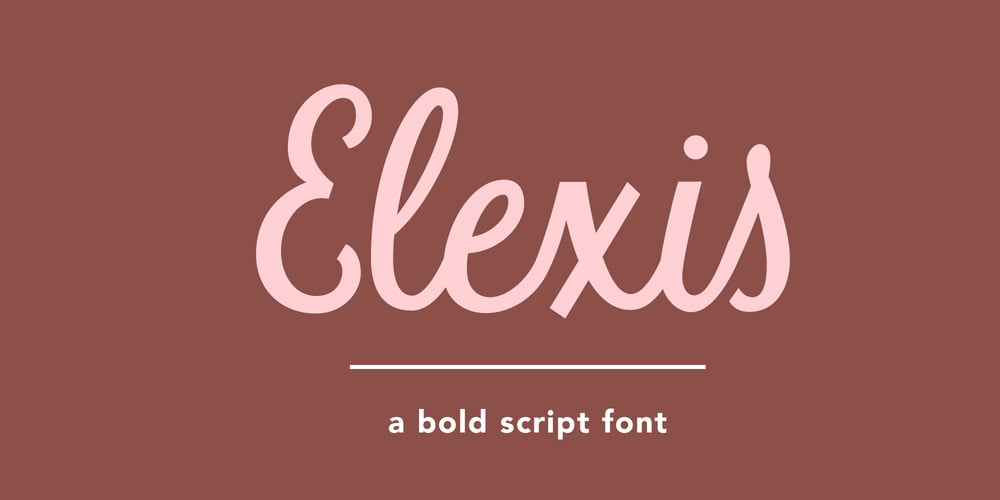
Elexis Font Family was designed by Danielle Edwards and published by Danielle Eneh. Elexis contains 1 styles and family package options. Elexis is a chunky, blocky script that will stand out in your next project. It’s perfect for branding, social media posts, advertisements, product packaging, and invitations.Multilingual Support: AÀÁÂÃÄÅCÇDÐEÈÉÊËIÌÍÎÏNÑOØÒÓÔÕÖUÙÜÚÛWYÝŸỲŸÆŒßÞþ